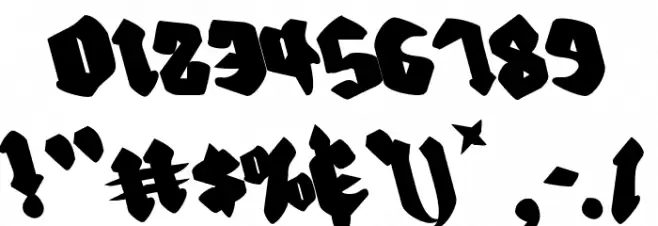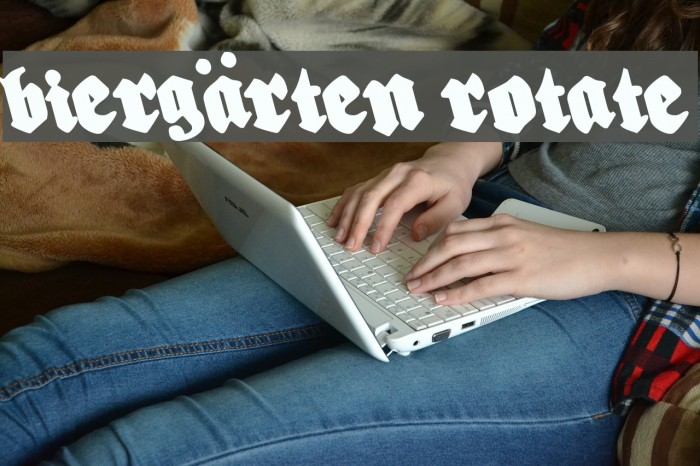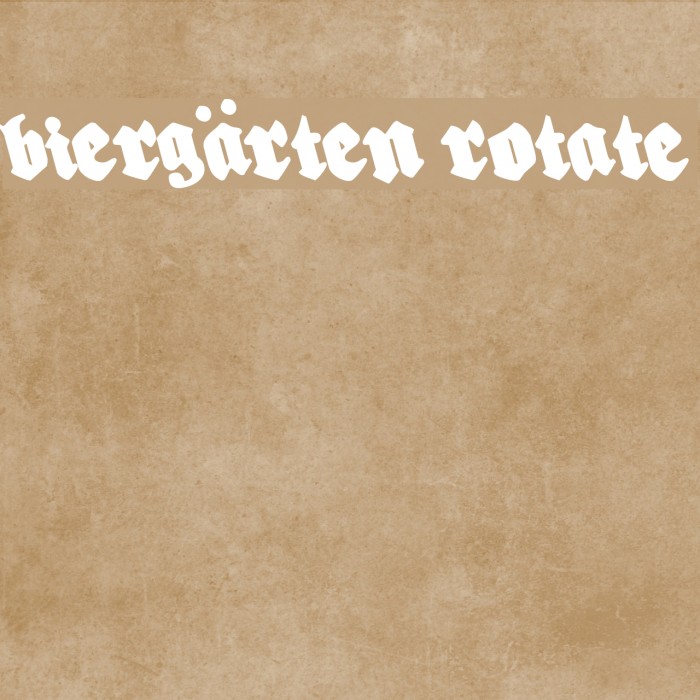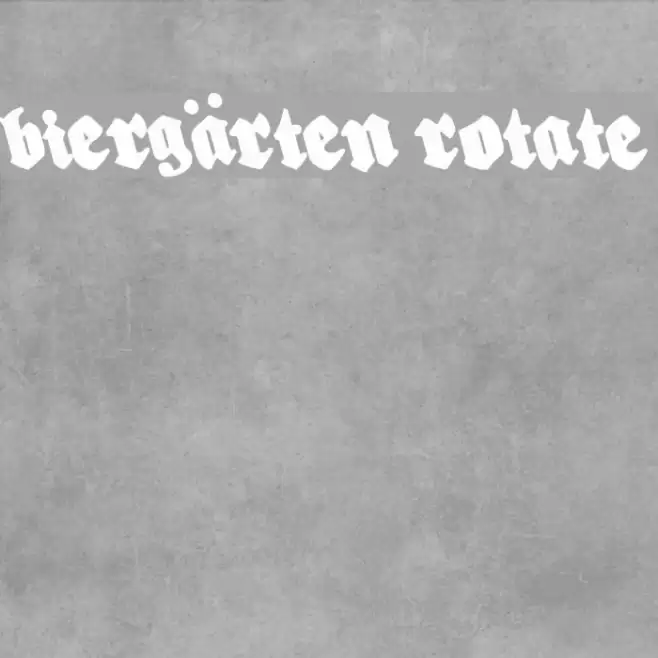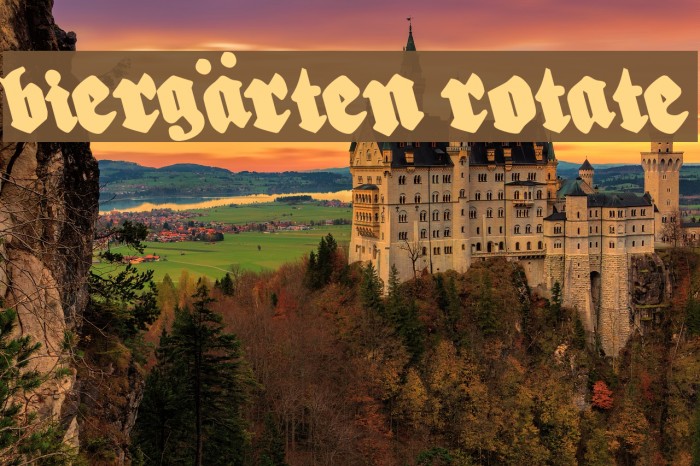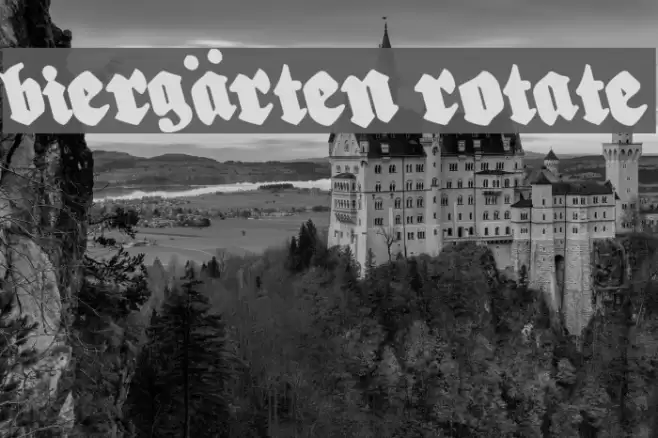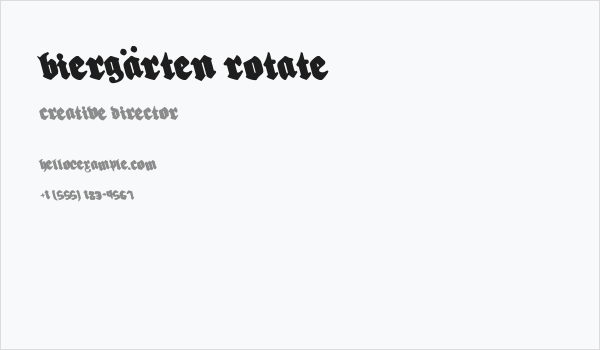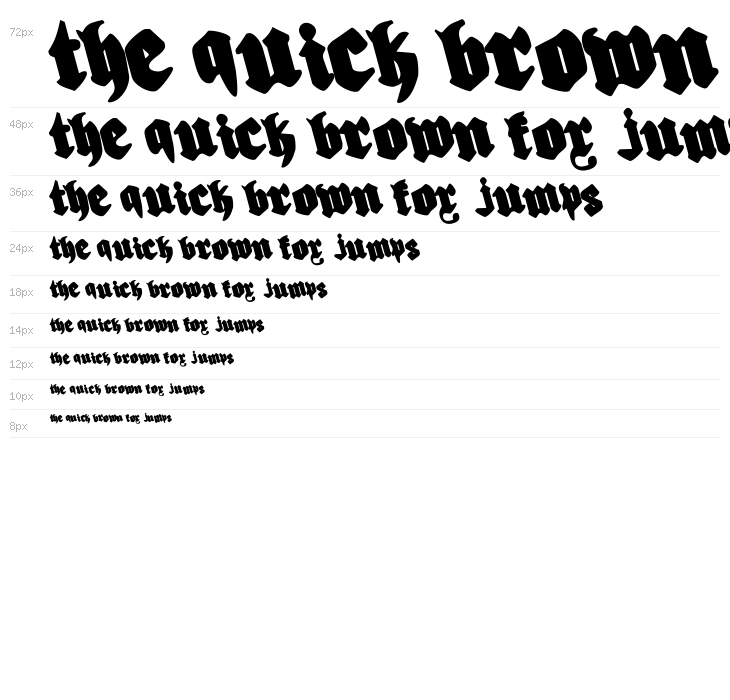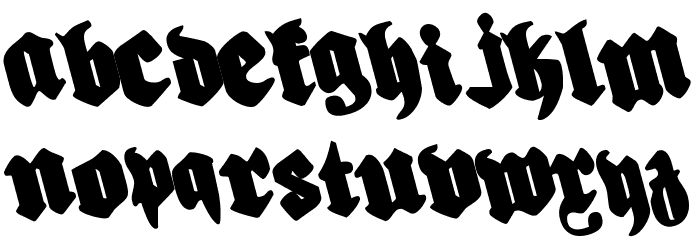
Biergärten Rotate Font
Biergärten Rotate Description
This font features a bold and dramatic style reminiscent of traditional blackletter typefaces. The characters are heavily stylized with sharp, angular lines and intricate details, giving them a distinct medieval or Gothic appearance. The uppercase and lowercase letters maintain a consistent design, with the lowercase letters exhibiting a slightly more condensed form. The numerals are equally ornate, matching the overall aesthetic of the alphabet. Special characters are included, each crafted with the same attention to detail and stylistic flair. This font's unique and historical look makes it ideal for projects that require a touch of vintage or classical elegance.
| Proposed Projects | Ideal for historical or medieval-themed designs, branding for craft breweries, or decorative posters. |